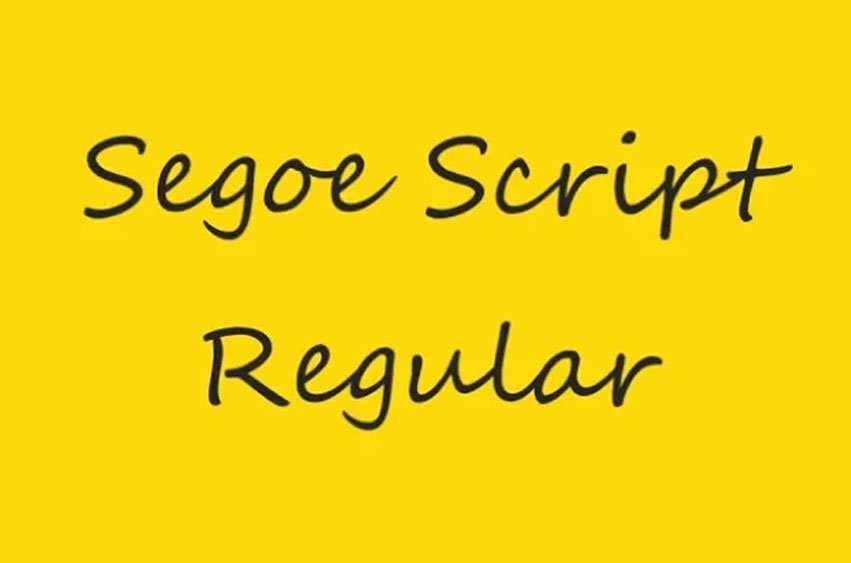
Segoe Script Font
Segoe Script Font from the Segoe font family uses handwriting fonts and with extended strokes for cursive style lettering. Ideal for logos or product labeling, to put text over an image – Segoe Script will enhance the elegance of any product, logo or graphic design!